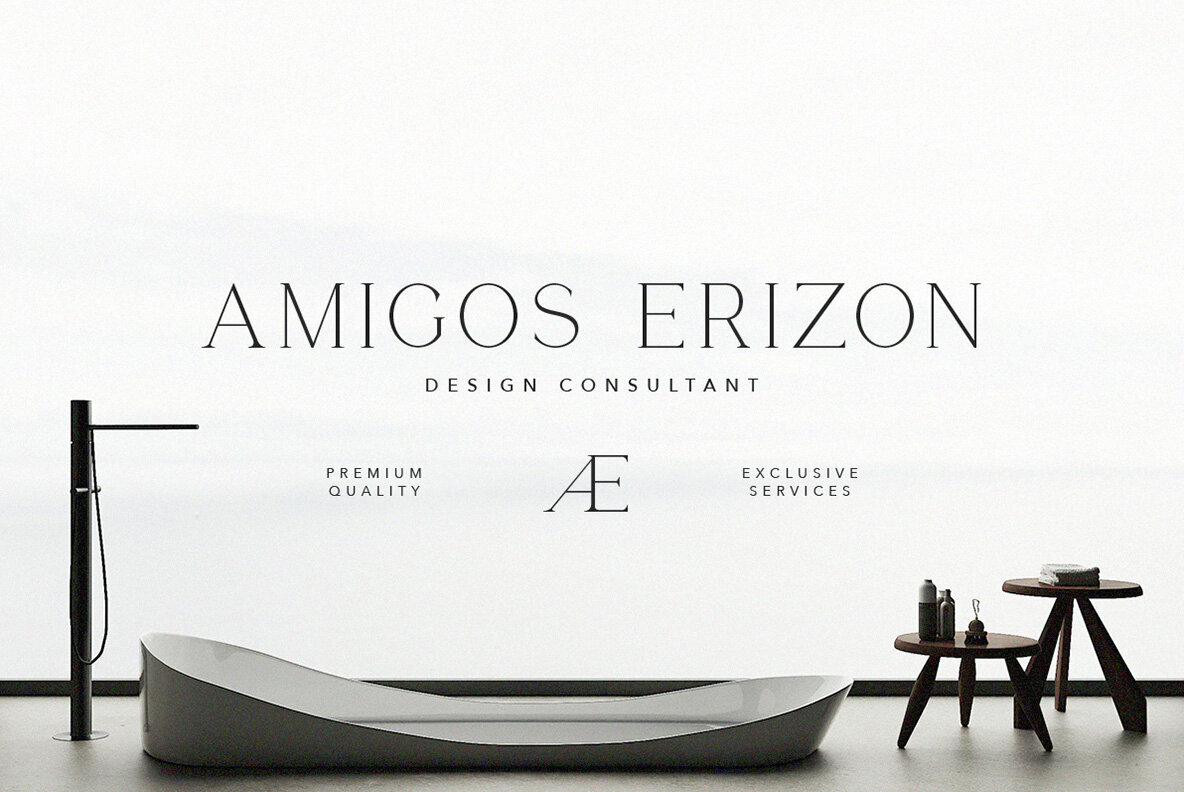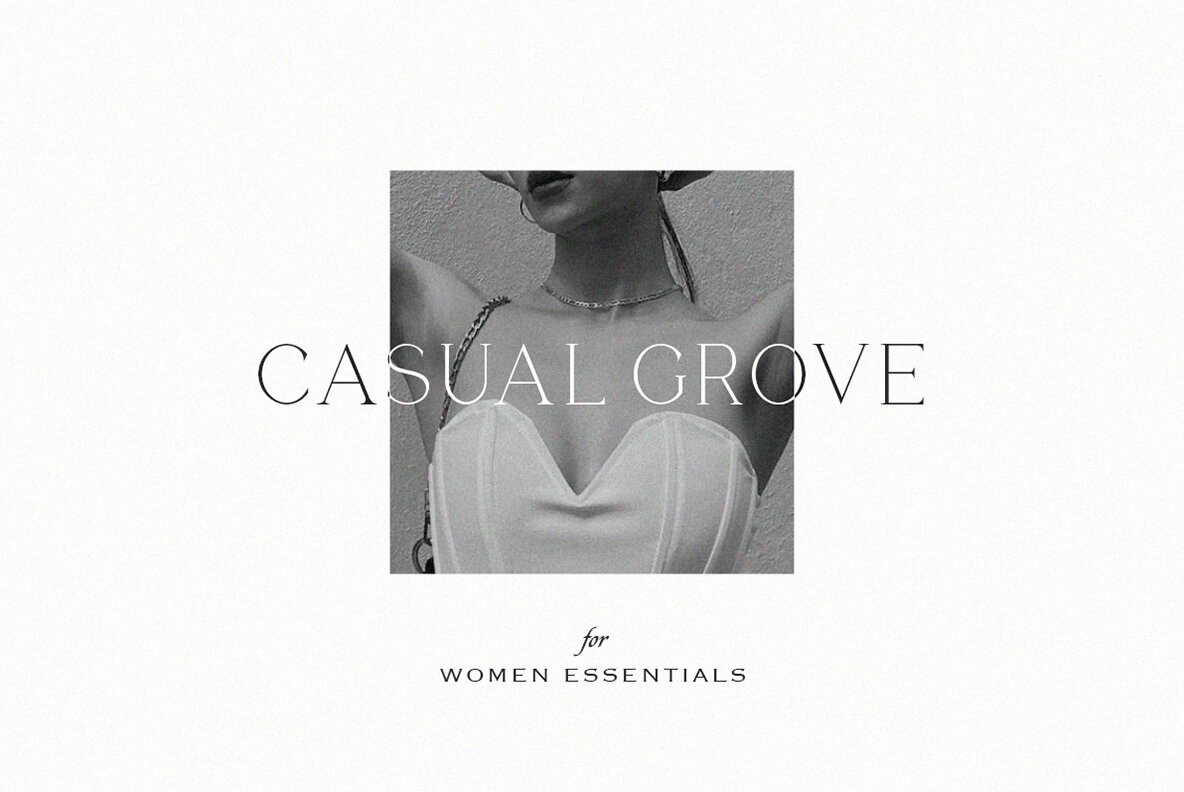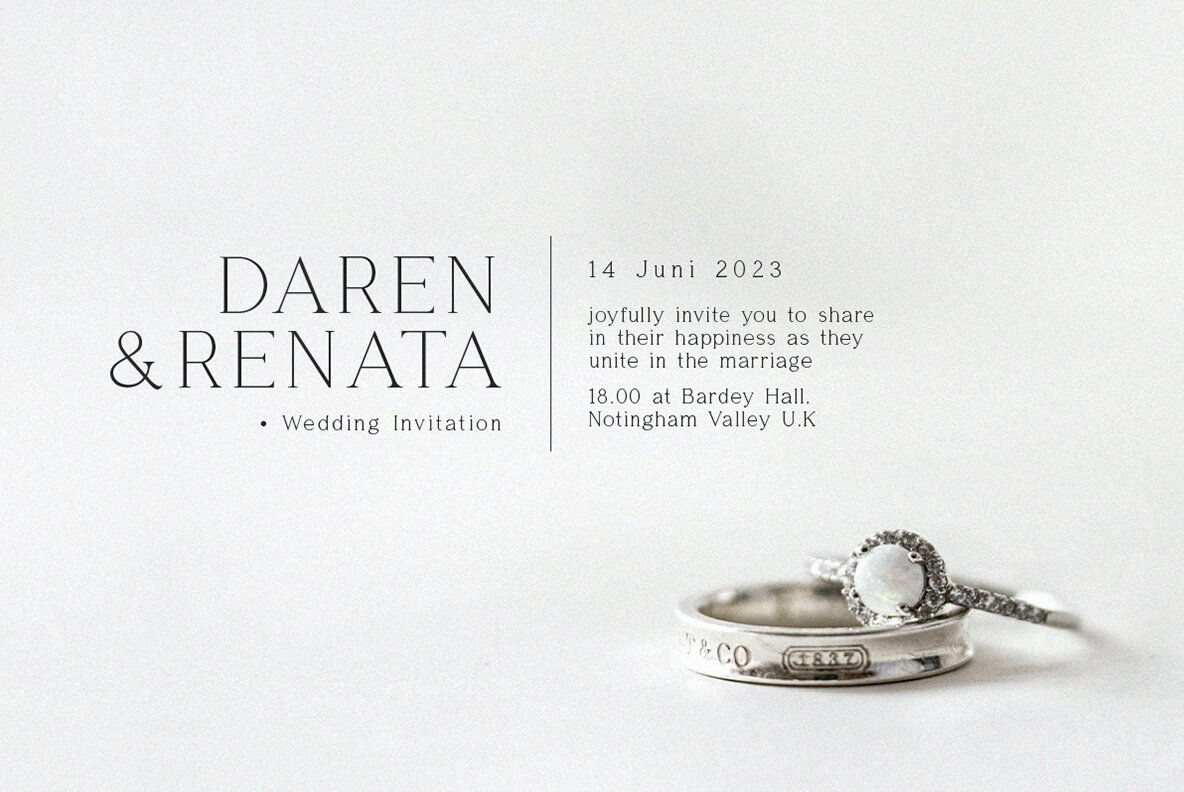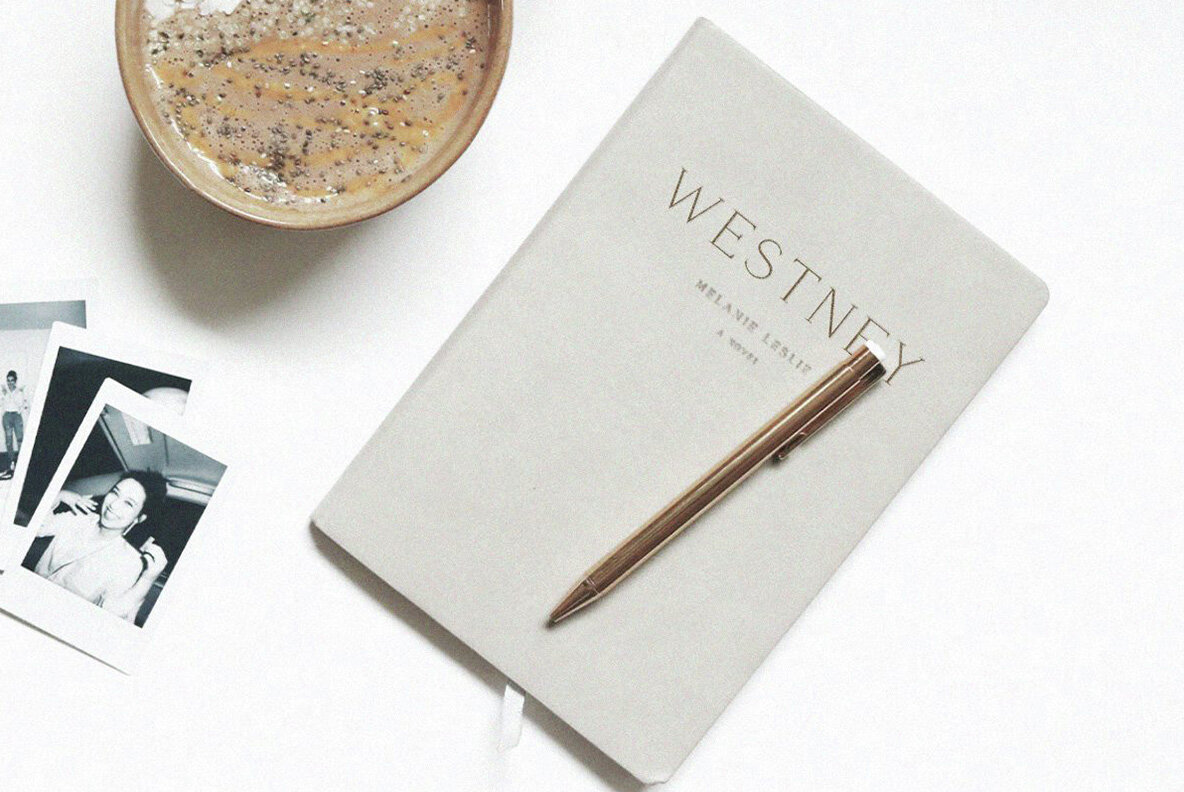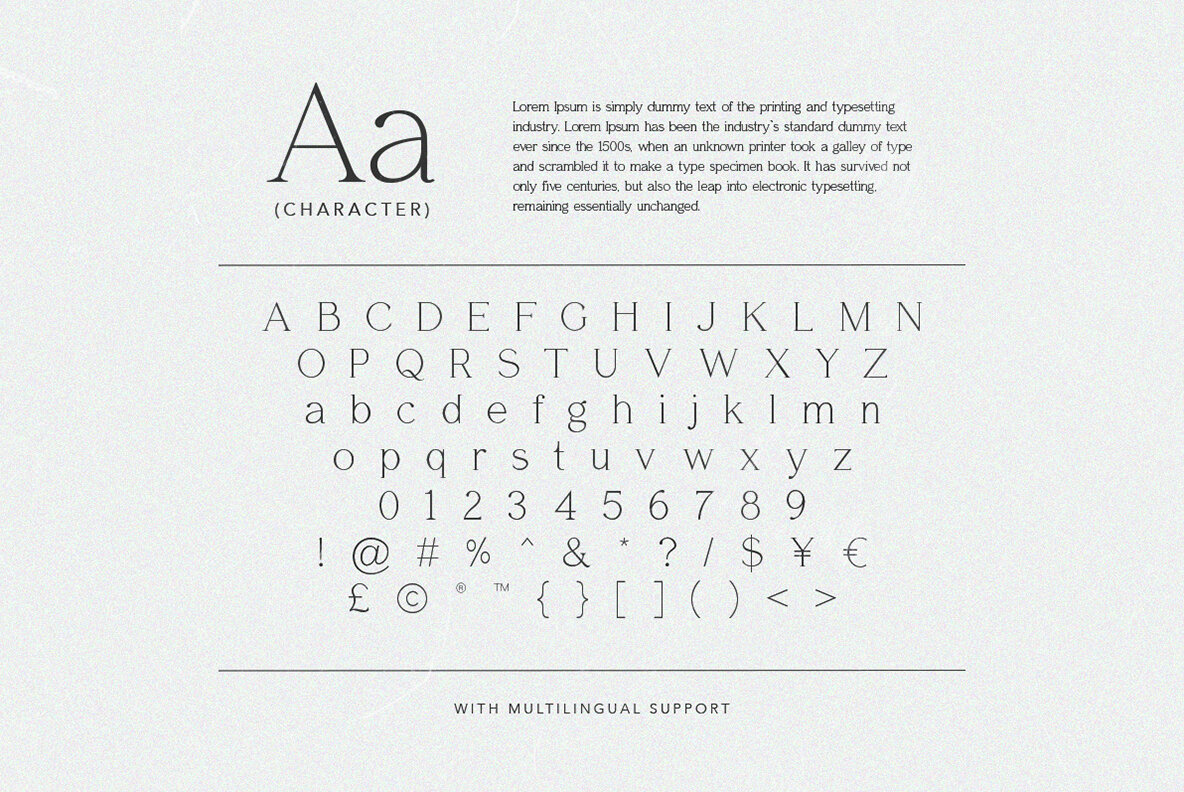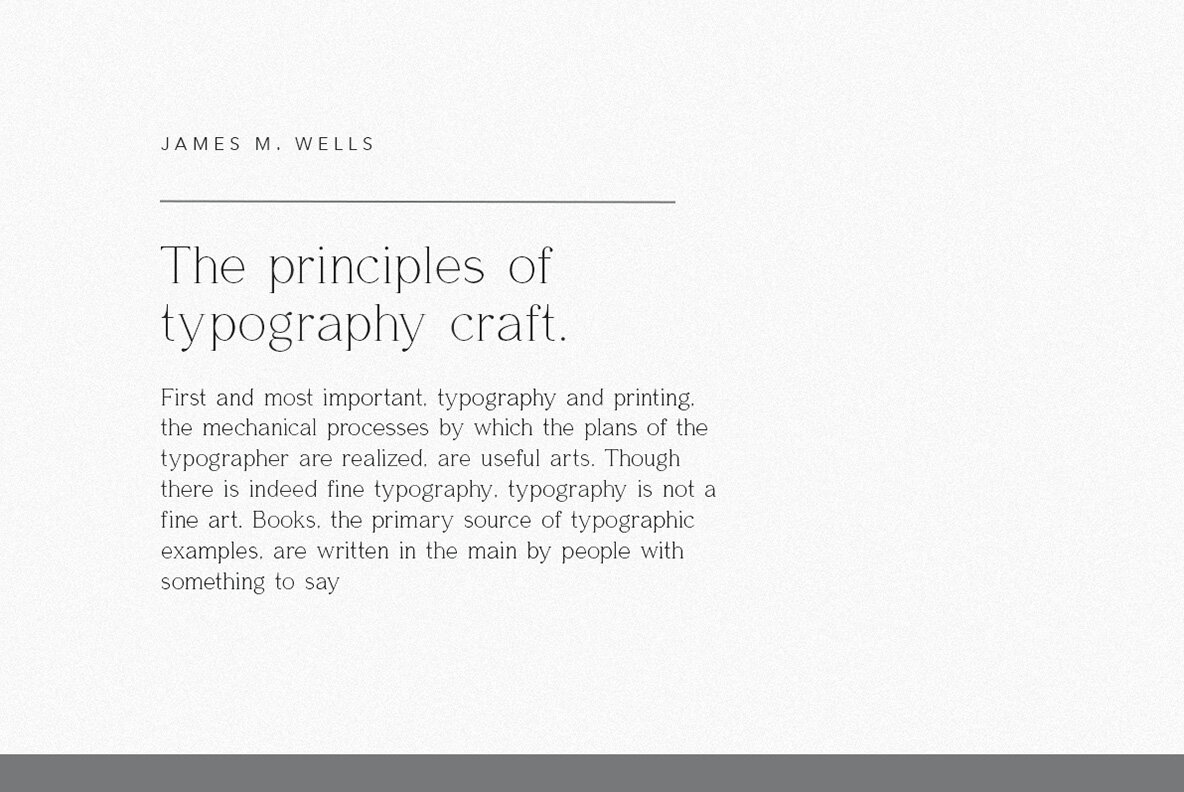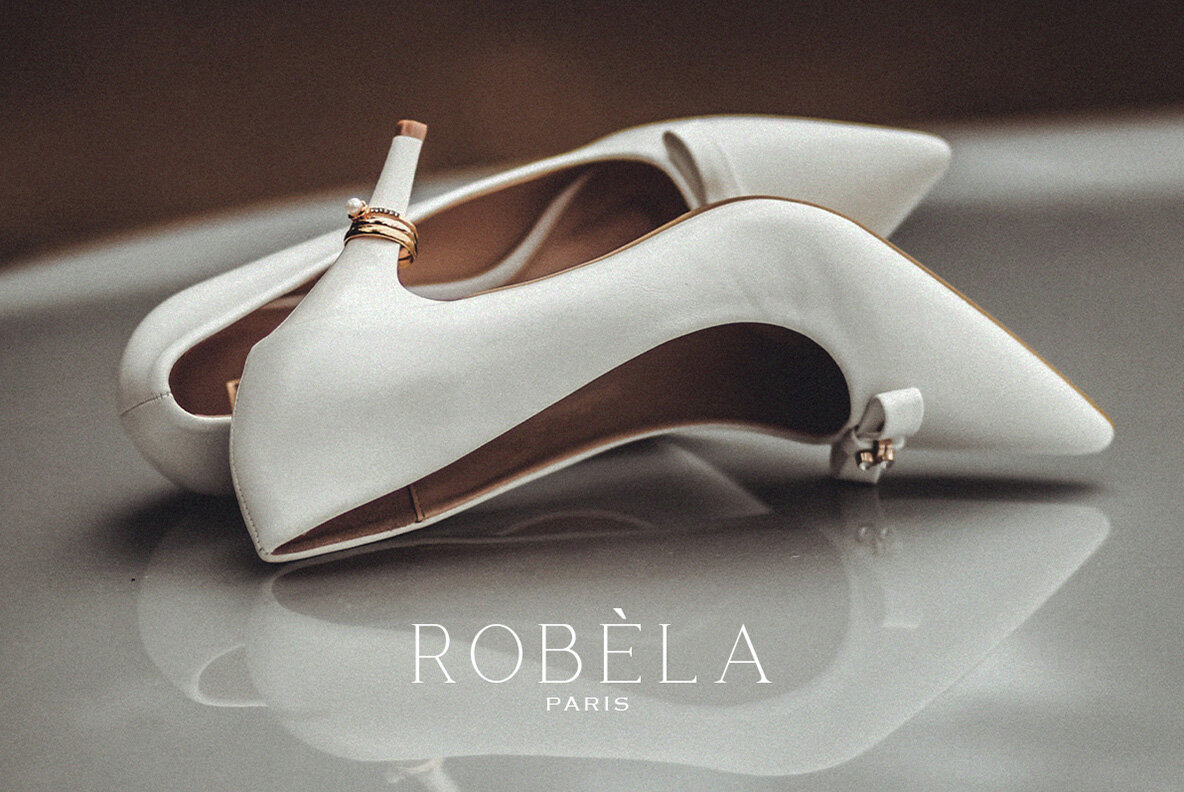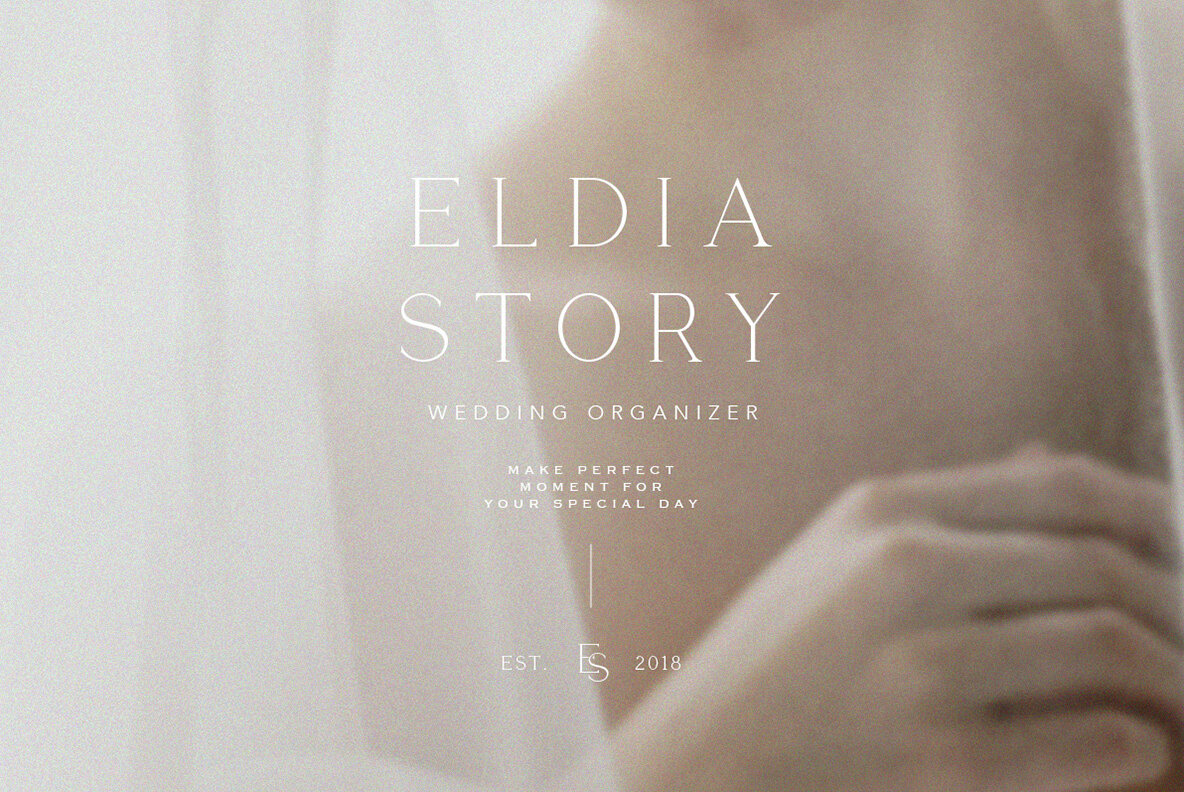
Kinta Font
Kinta Regular
Kinta is a serif font that embodies an elegant and authentic style. With its clean, minimal lines and understated flourishes, it retains the classic charm of serif fonts while introducing a modern, minimalist aesthetic. Ideal for projects that require a touch of sophistication and authenticity, Kinta suits a wide range of branding and design needs.Kinta: A Clean Serif for Modern Elegance